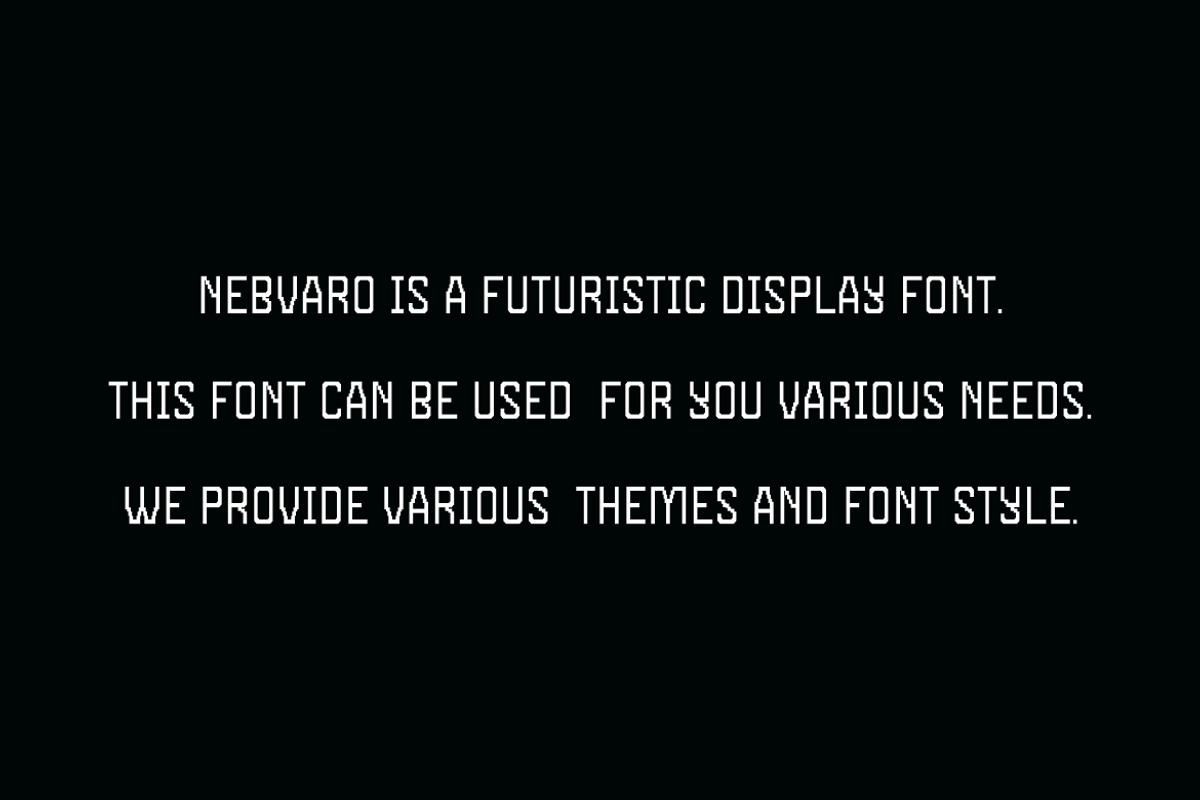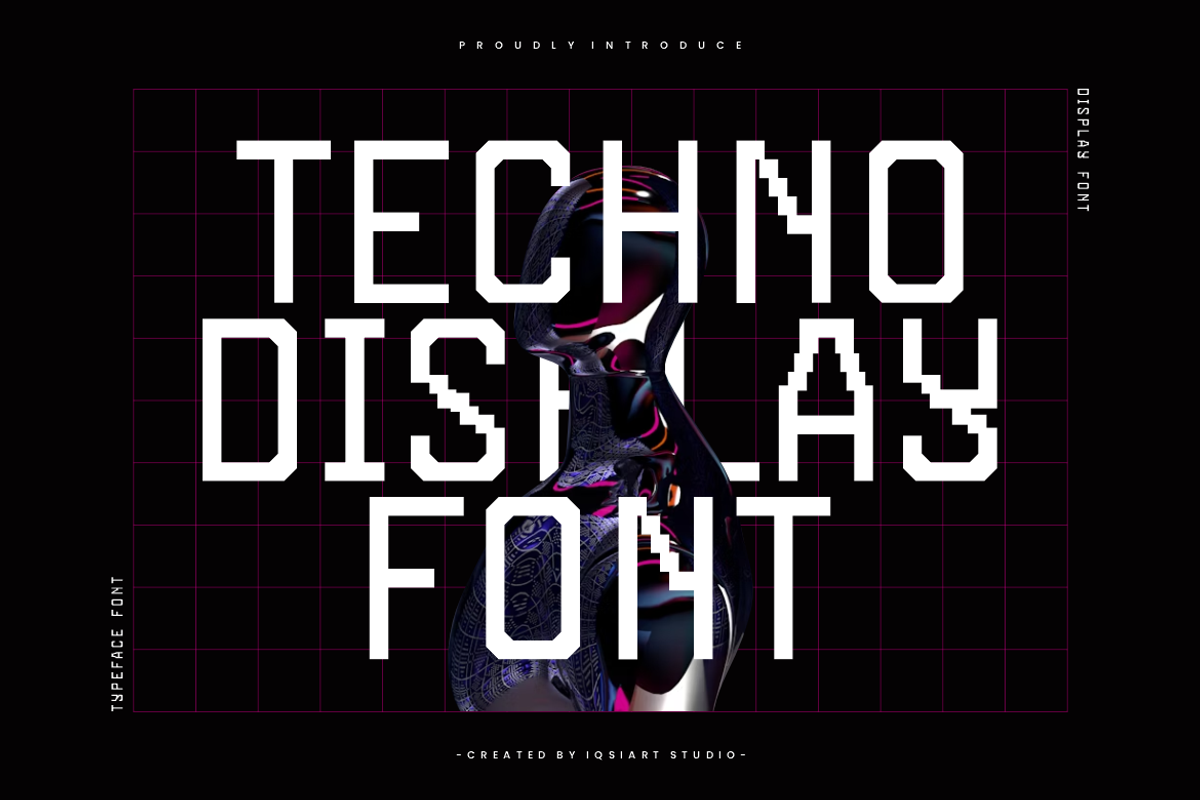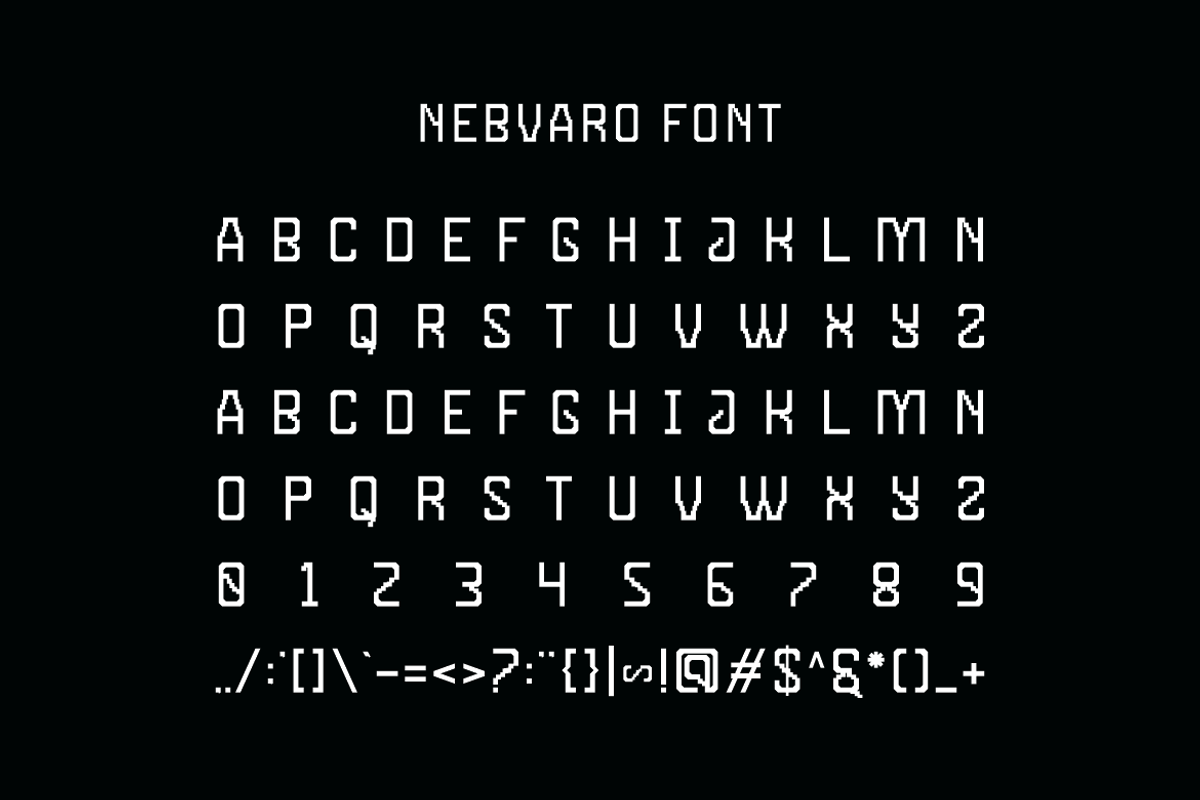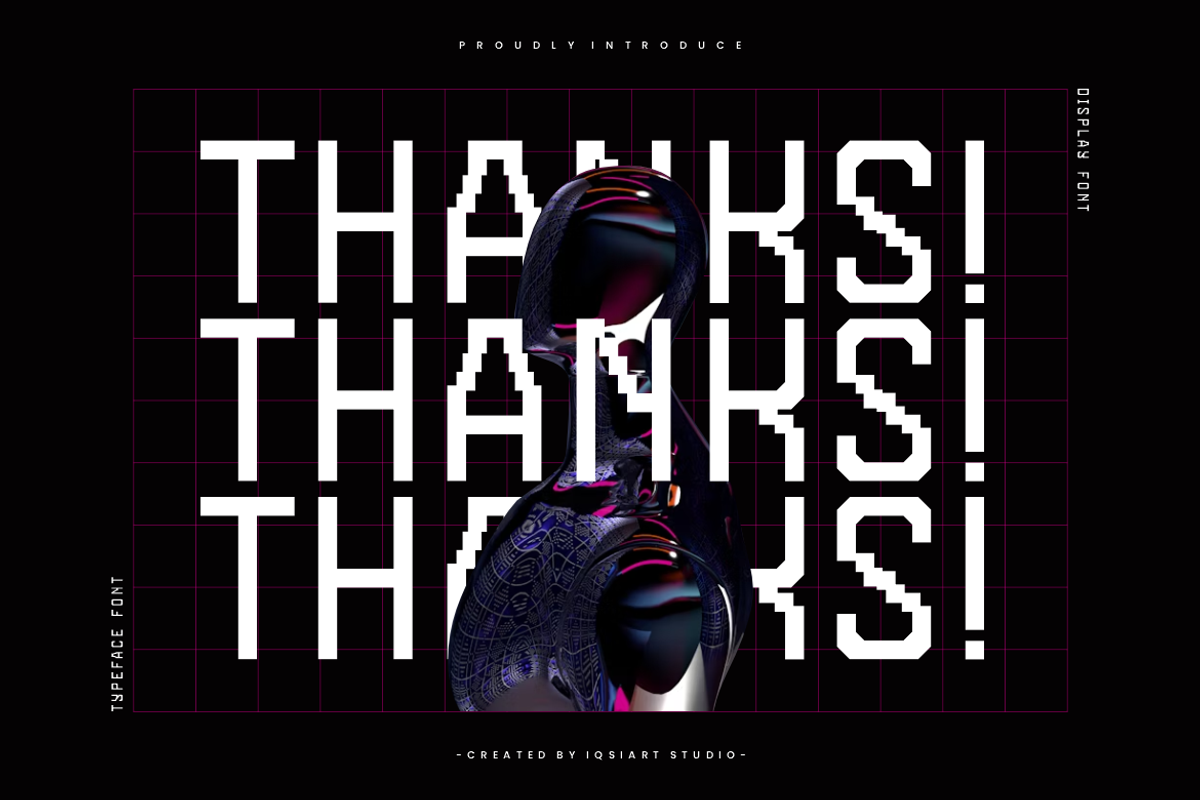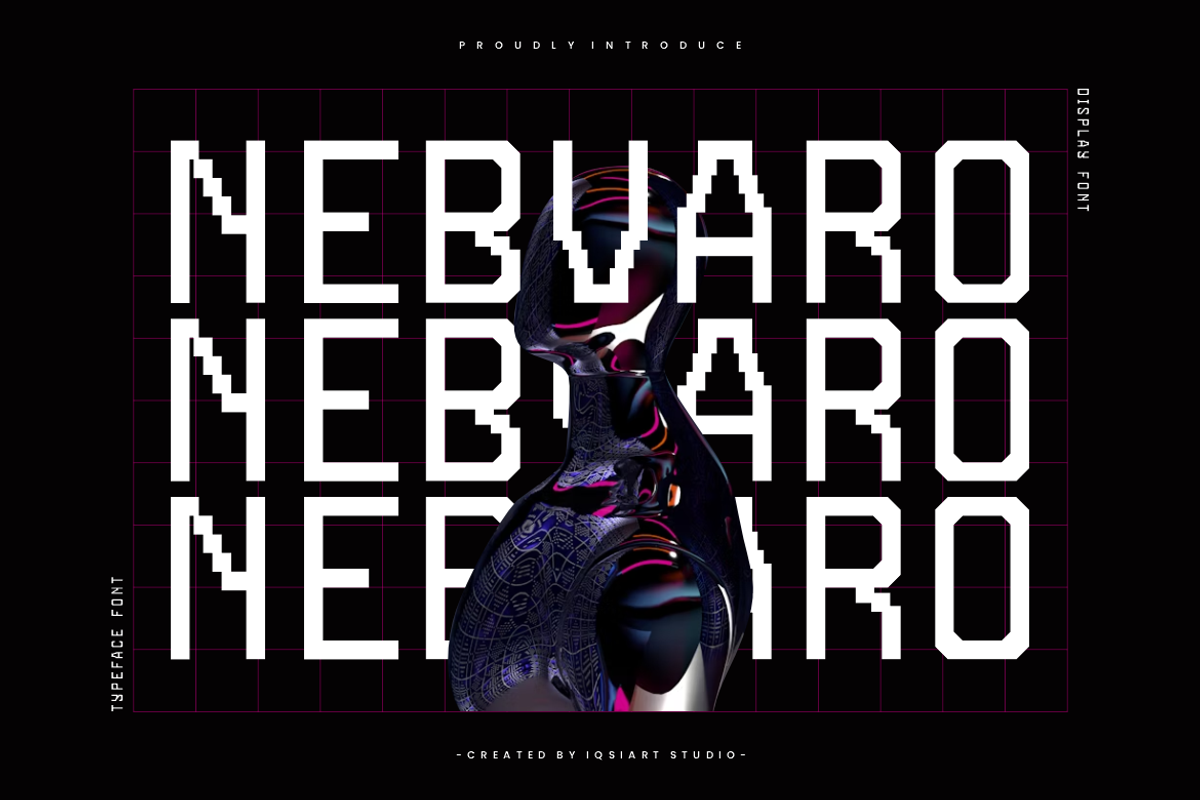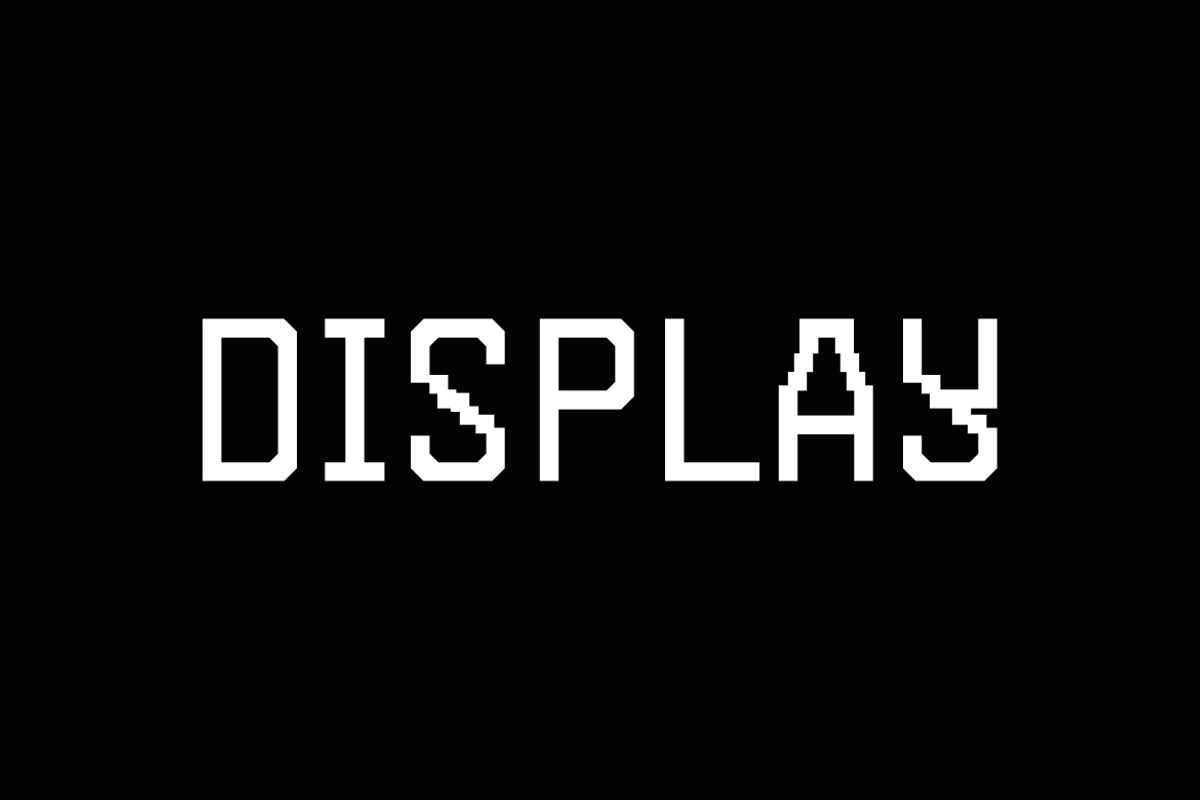
Nebvaro - Pixel Tech Font
Nebvaro Font is a best and authentic display font. This font can be used for your various needs. We provide various themes and font styles. visit our profile to get a wide variety of themes and different font styles you need.